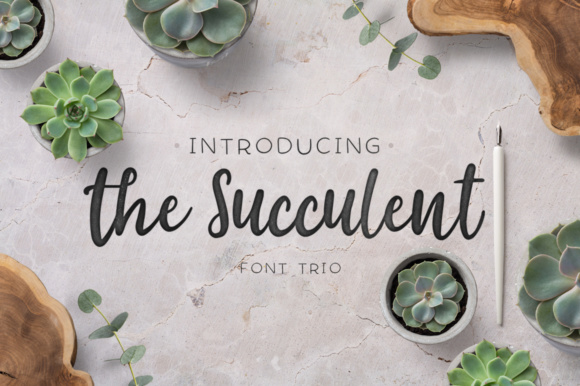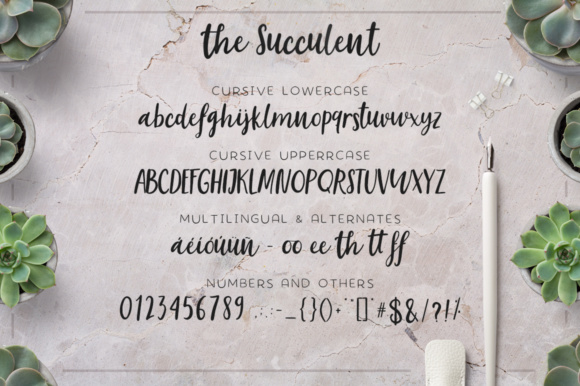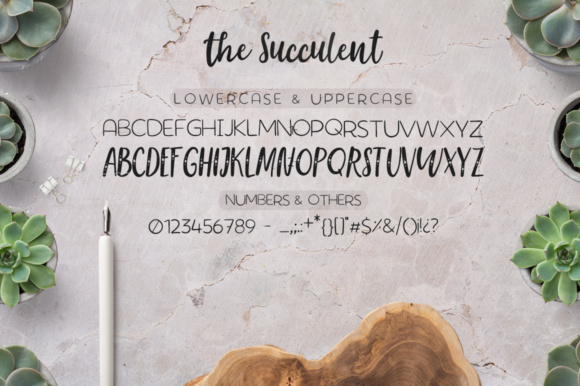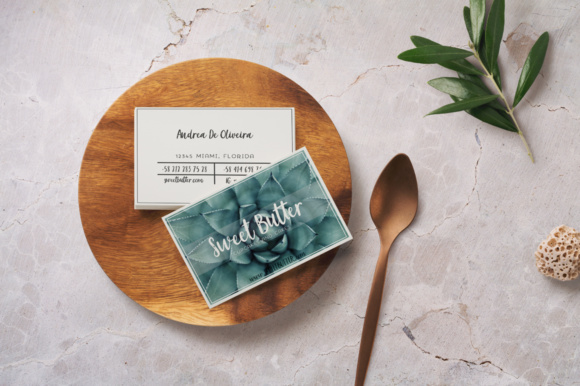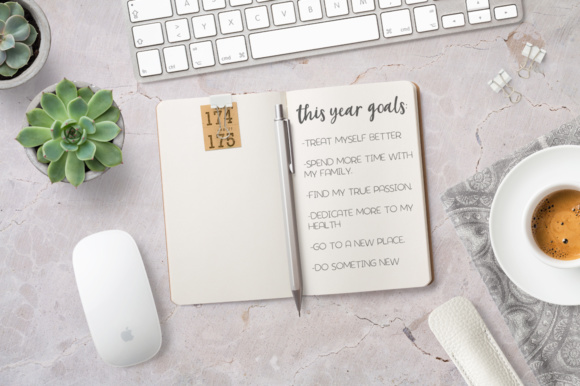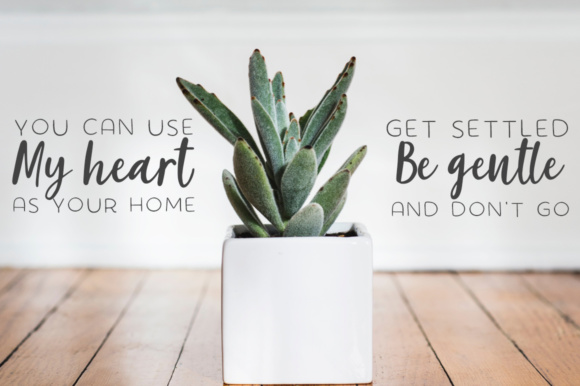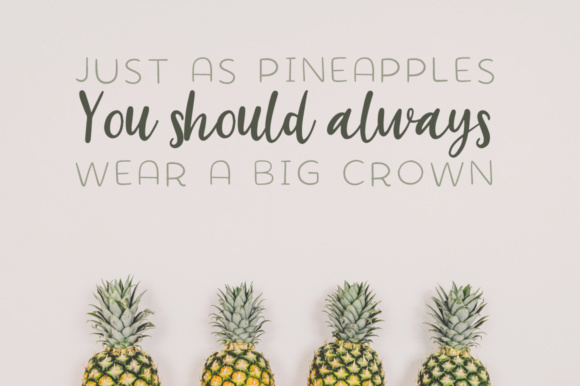
The Succulent Trio Font
About The Succulent Trio Font
The Succulent is a very feminine, earthy and stylish font. It comes in three styles which gives you the opportunity to create multiple unique designs with just this one pack!